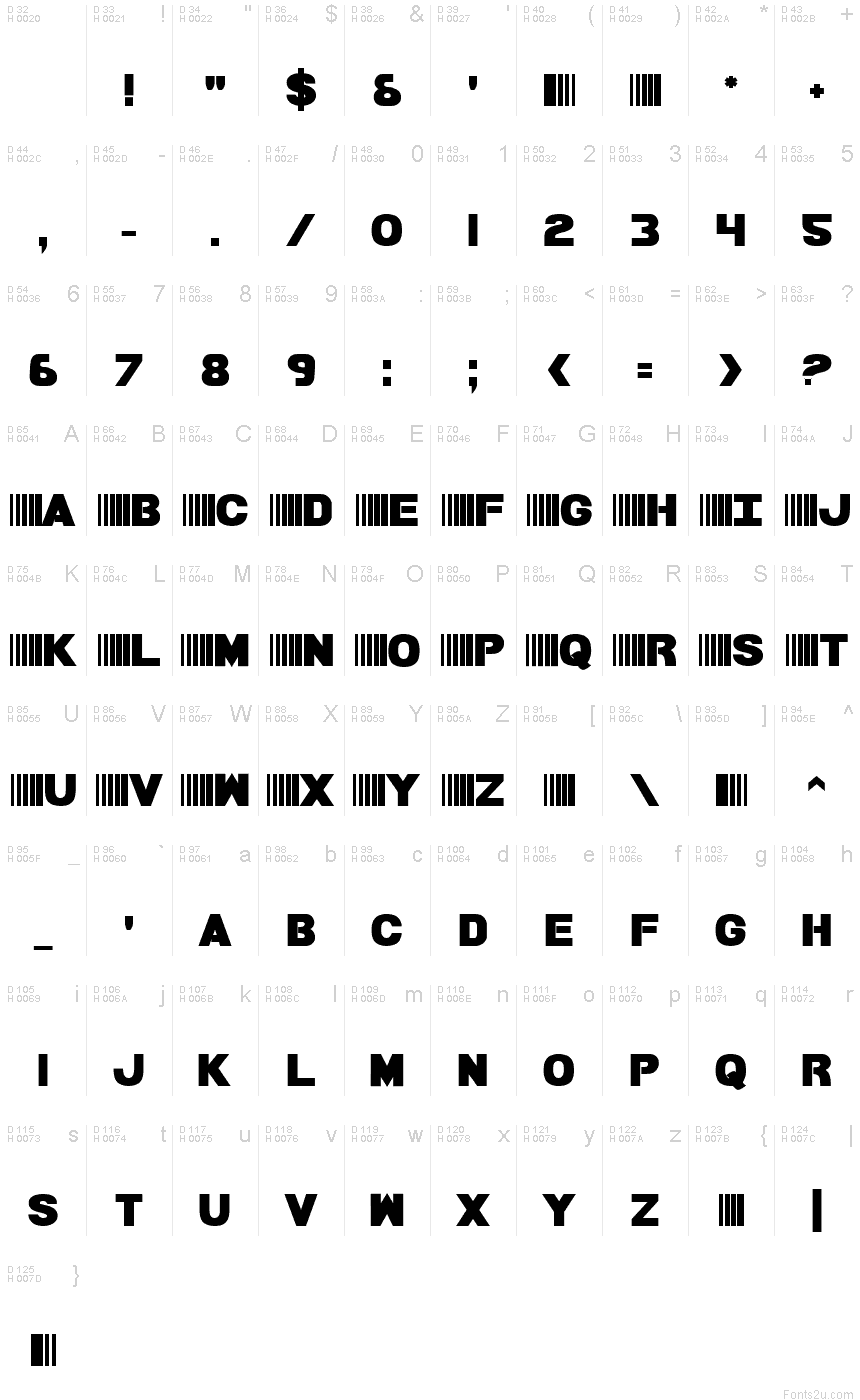
Bamf Bold
Bamf Bold font by Iconian Fonts is a free retro display typeface that hits like a comic book sound effect. Its blocky, all-caps forms, tight spacing, and stacked vertical bars feel loud, fast, and a little bit futuristic—like arcade cabinets and ’90s superhero covers mashed together. The letters look carved from solid ink, giving logos and titles a punchy, high-impact presence that’s hard to ignore.
Using Bamf Bold, you can crank up the drama on game logos, esports branding, sci-fi posters, comic titles, YouTube thumbnails, and bold merchandise graphics. This free font shines at large sizes where its chunky geometry and solid fills can really dominate the frame. Pair Bamf Bold with a clean, light-weight sans serif for body text to keep things readable while letting the headline do all the shouting.